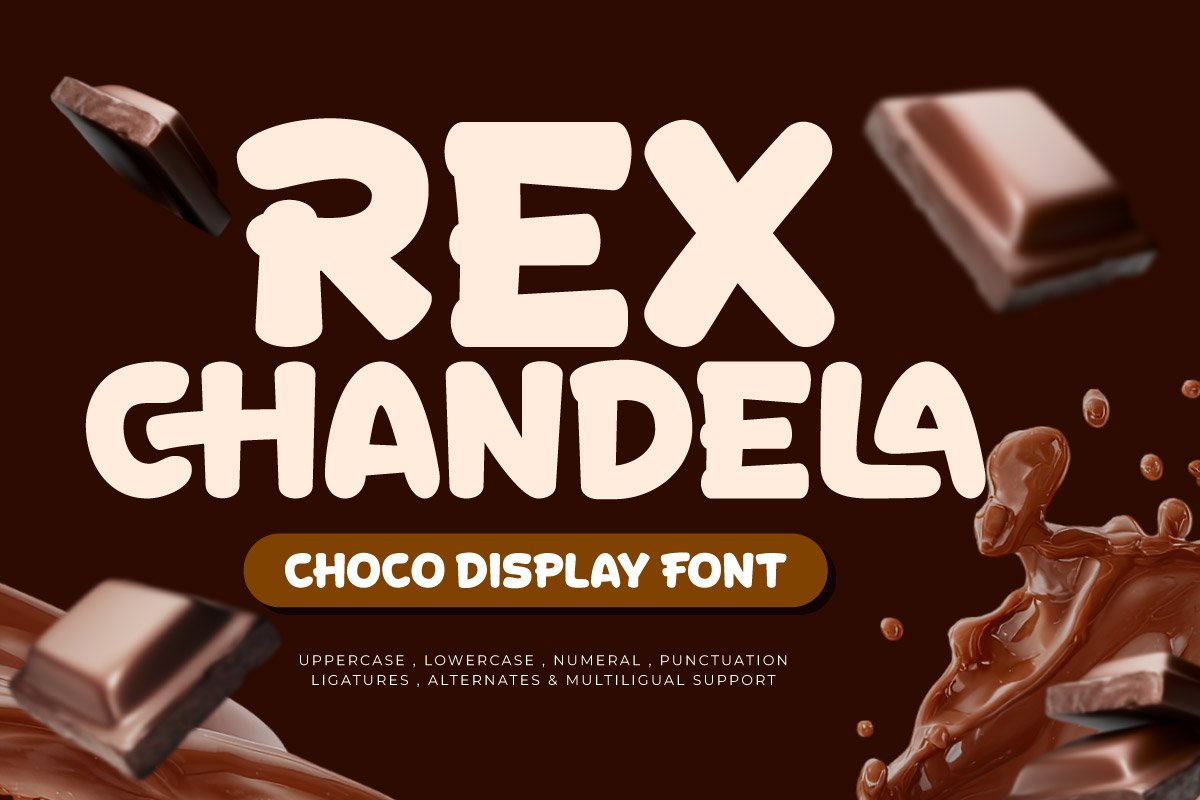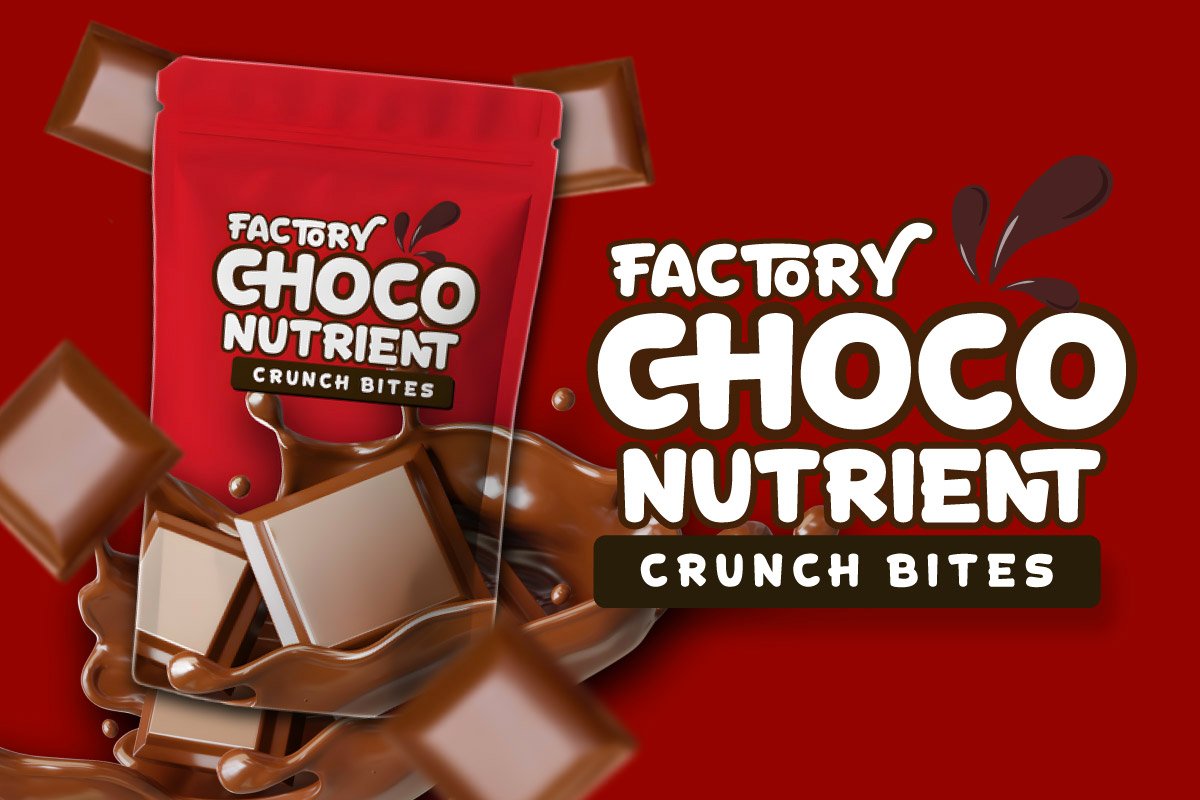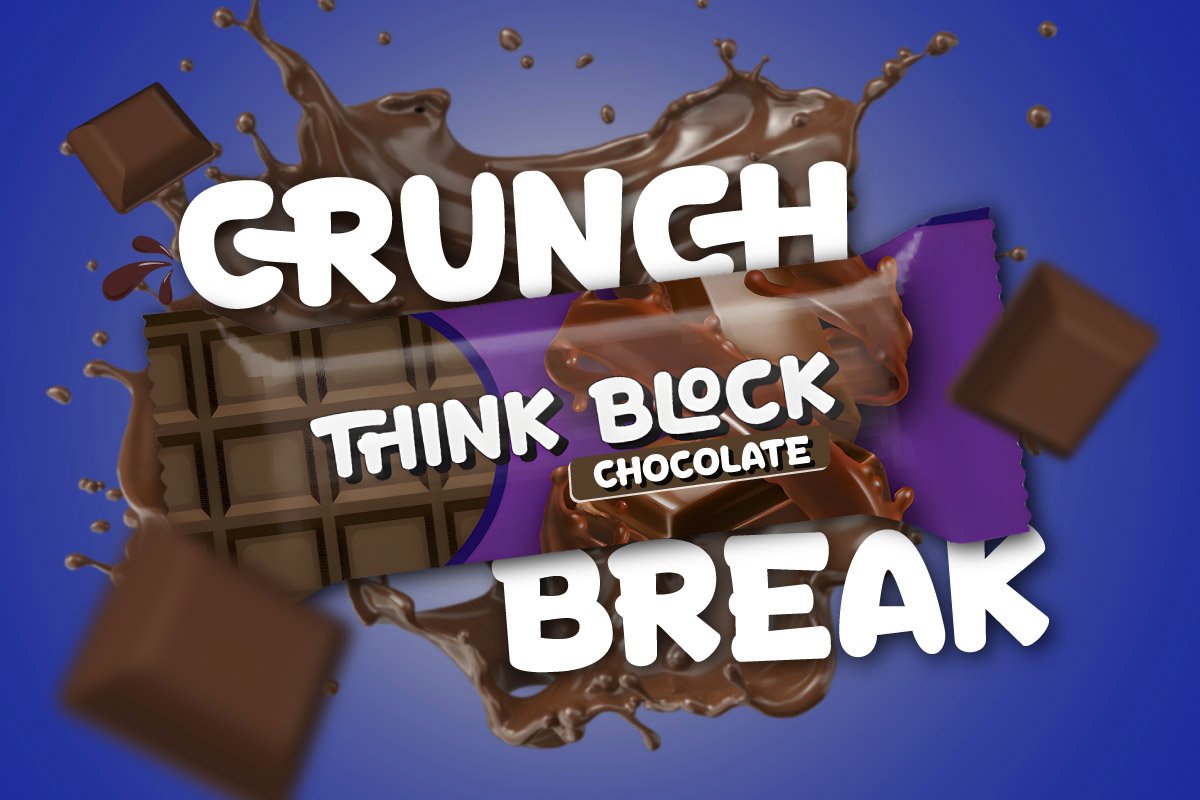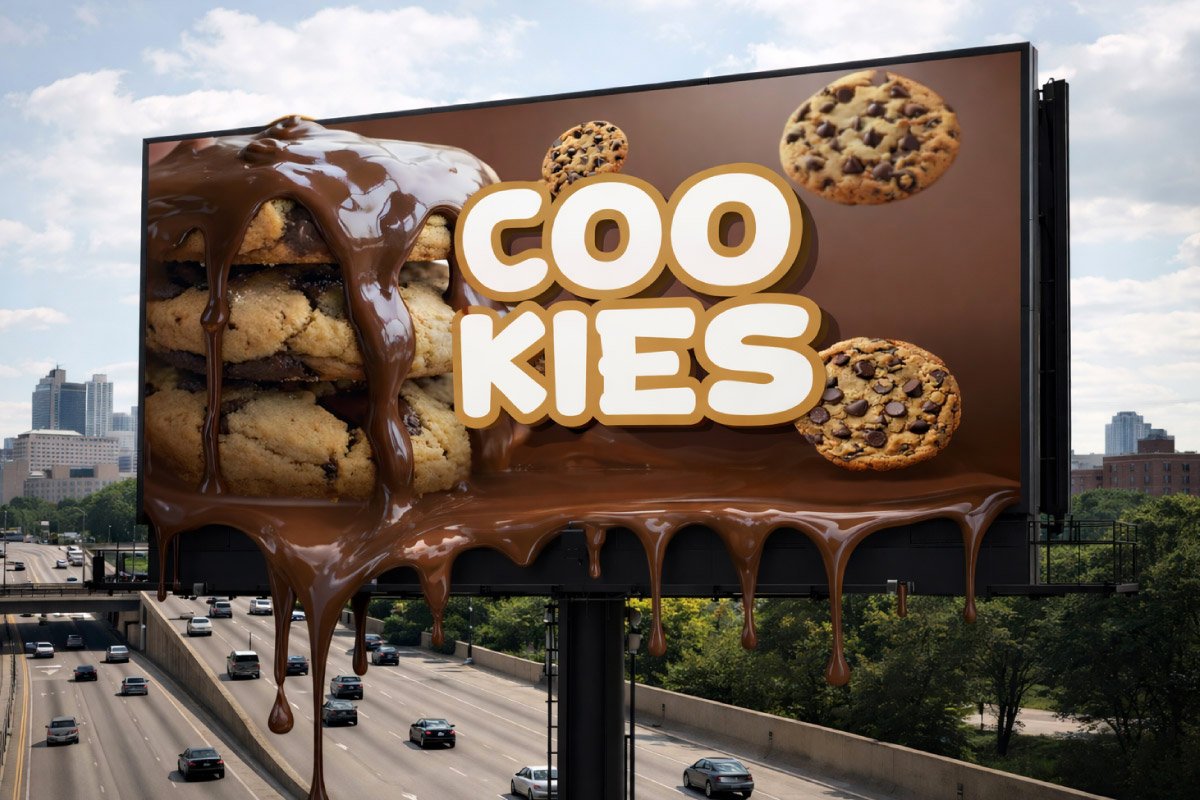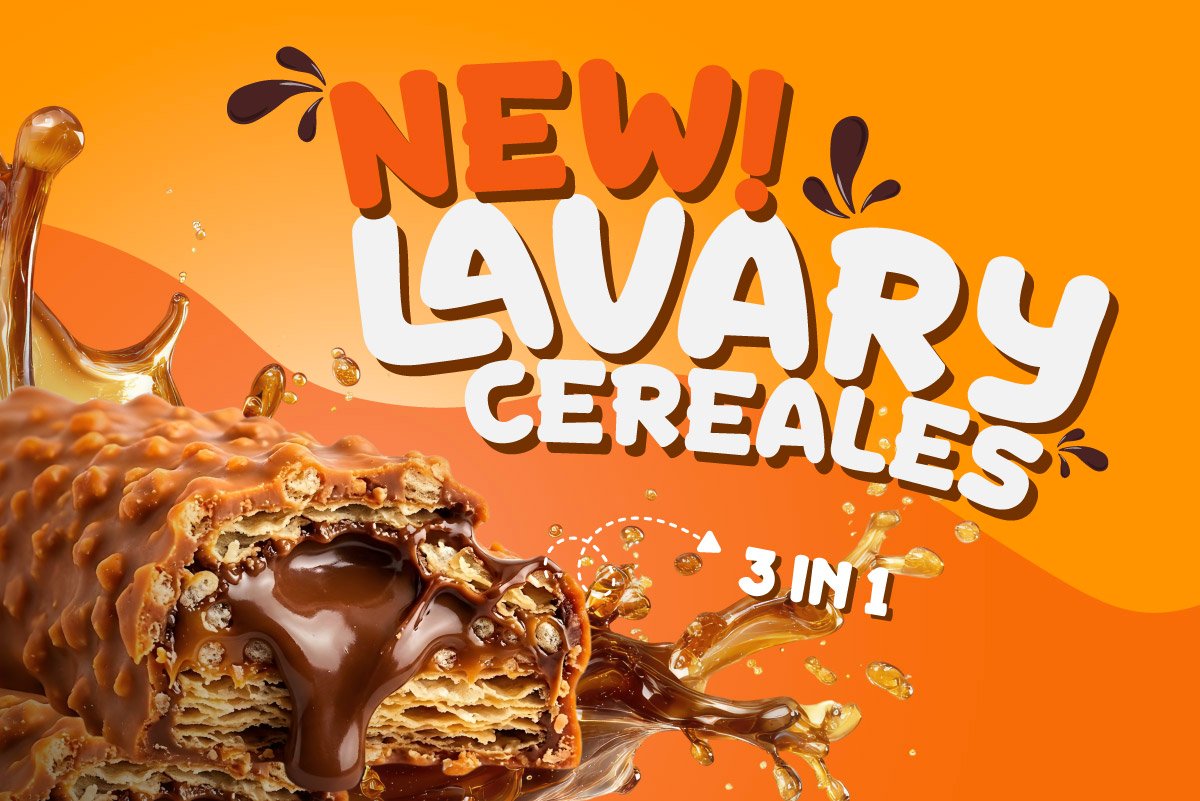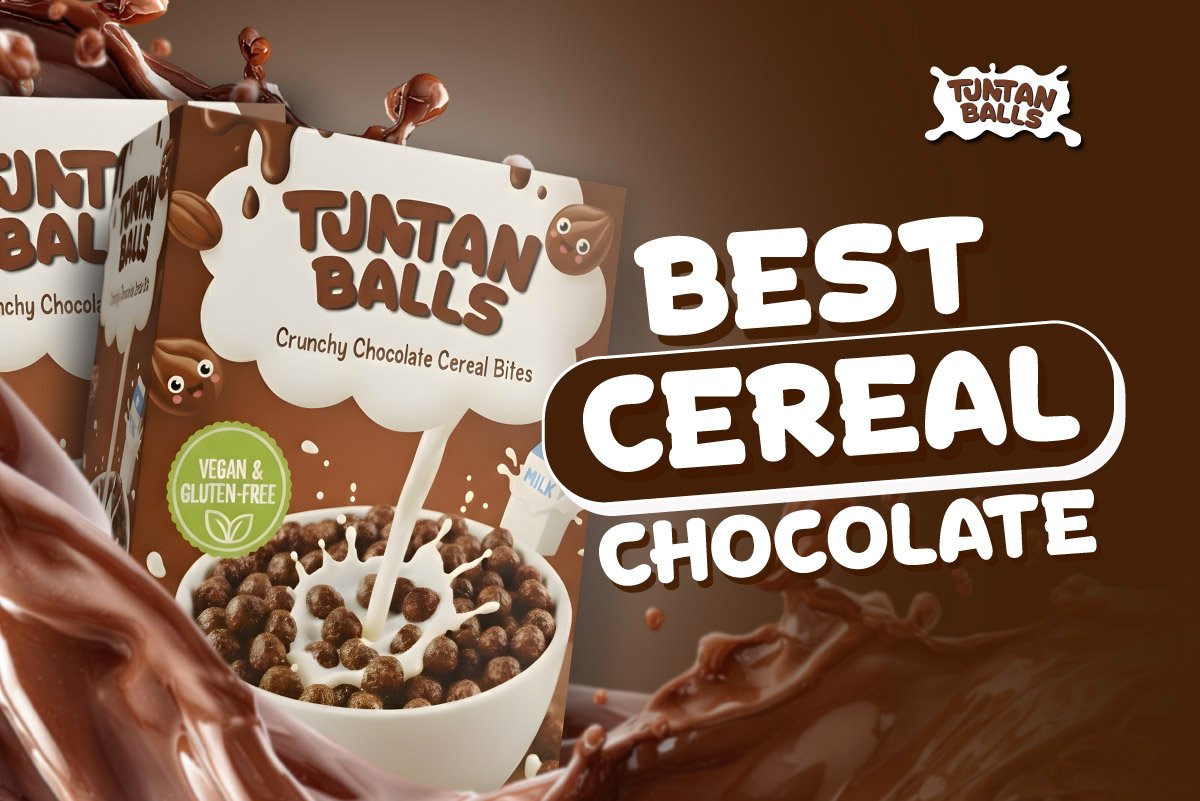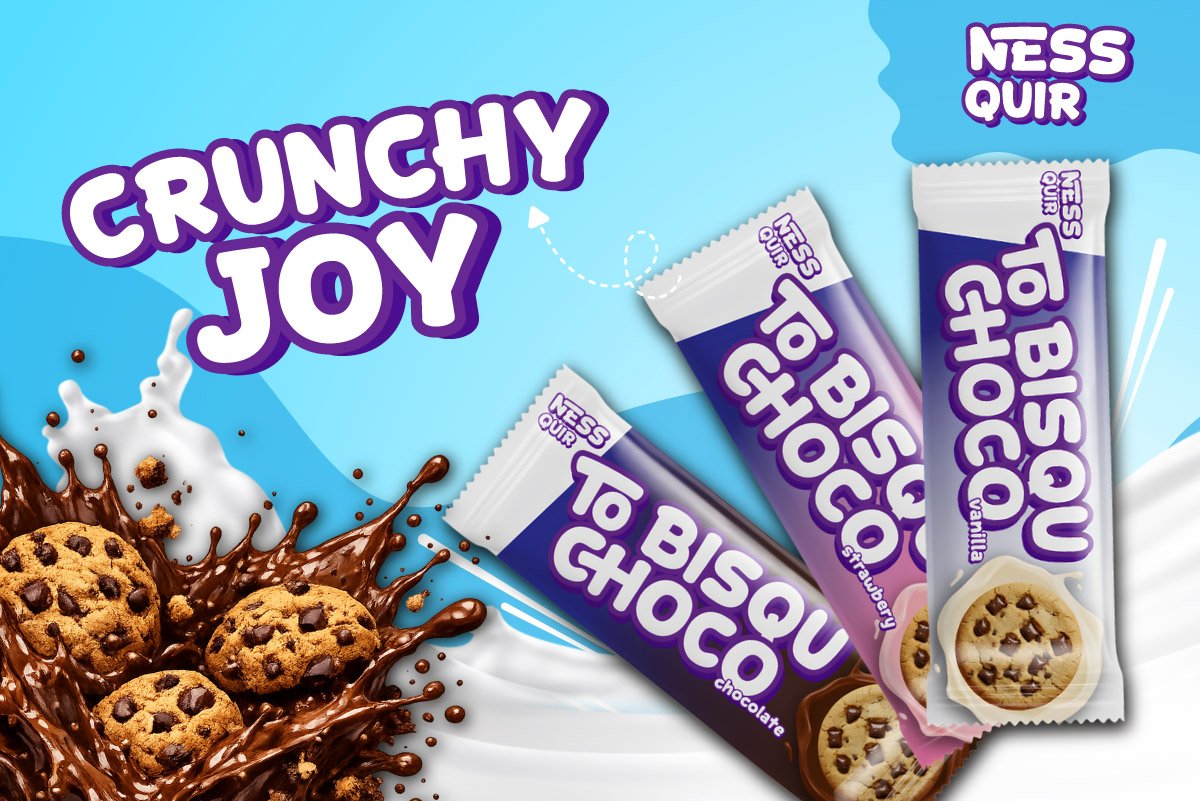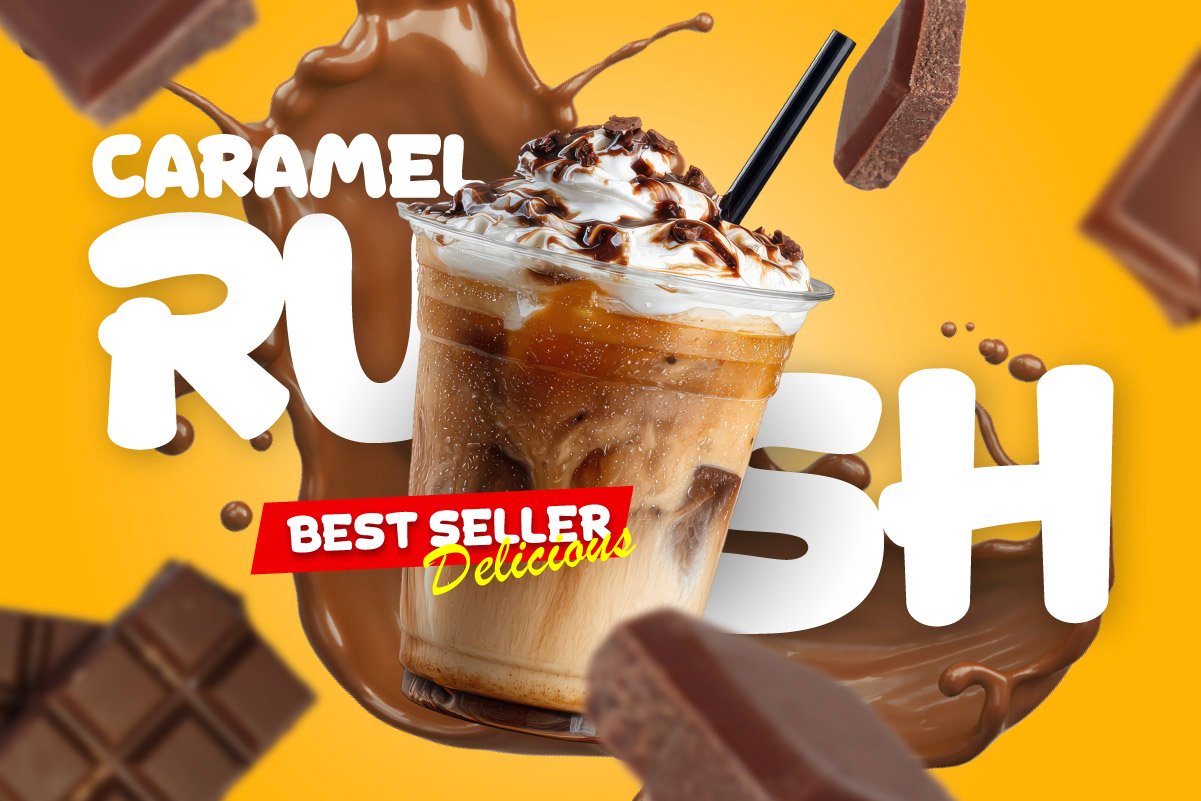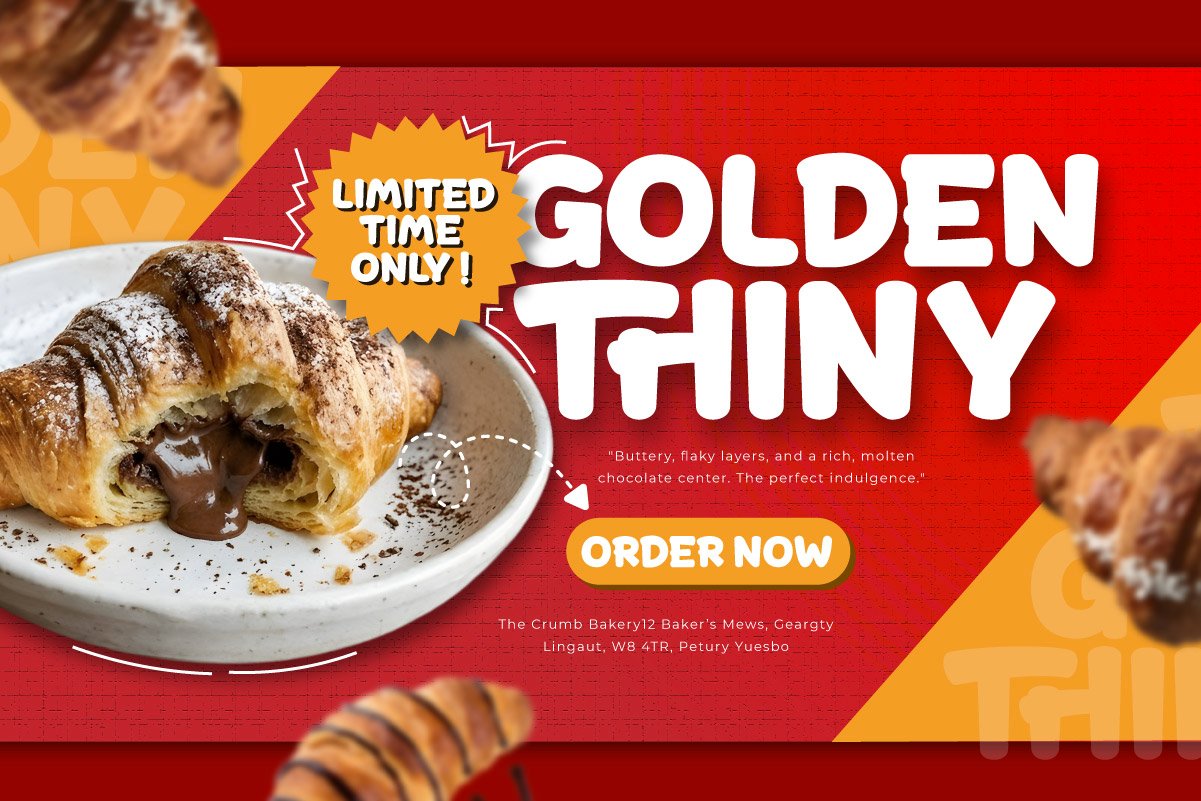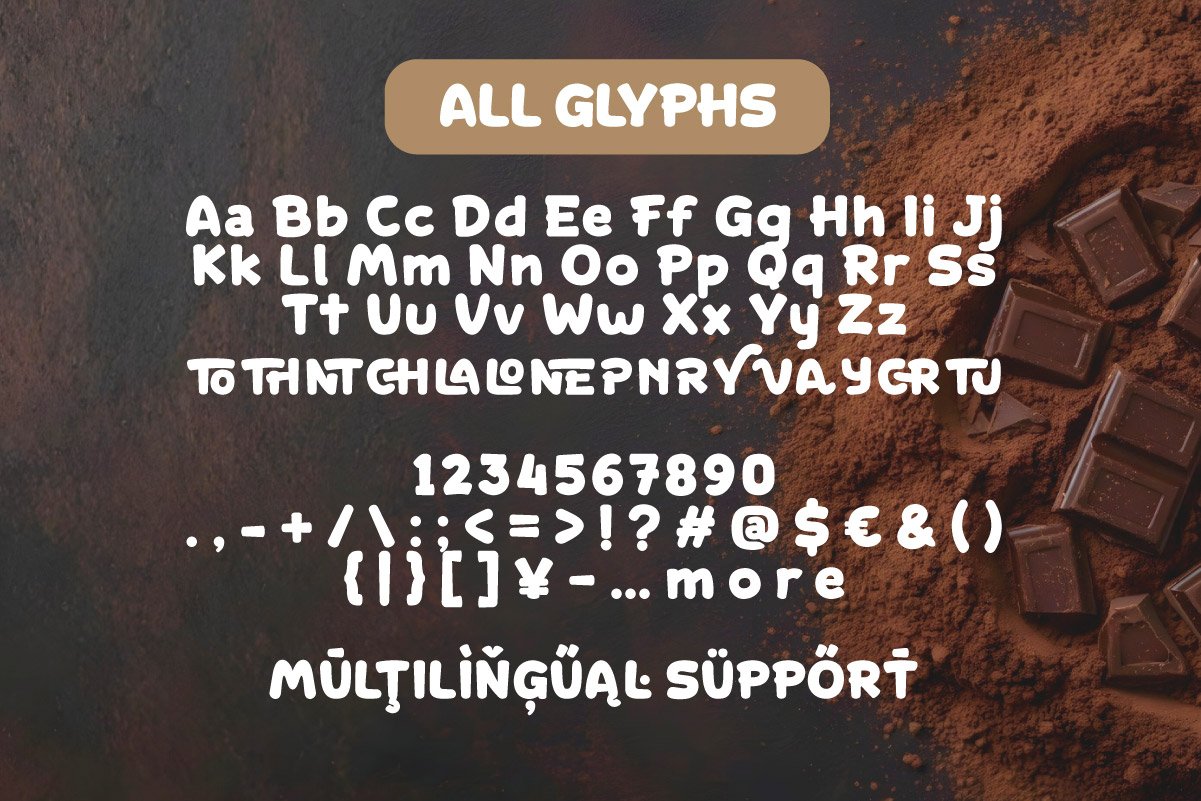
Rex Chandela – Choco Display Font
Rex Chandela is a Choco Display Font typeface designed to strengthen visual identities within the F&B (Food & Beverage) industry. Featuring bold and rounded letterforms, this font delivers a functional impression for branding needs in the Snack & Confectionery sector. Its soft characteristics provide a friendly and modern vibe to any sweet treat product packaging.
The font design prioritizes high readability with solid letter proportions, making it an ideal asset for Chocolate Bar packaging designs and other product labels. Its shapes, which resemble the texture of sweet treats, are highly relevant for casual yet visually professional Daily Break-time Snack themes. The structure of each character helps create a clear information hierarchy in dense design layouts.
As a culinary typography solution, Rex Chandela is highly effective for bakery logos, promotional posters, and social media content. Its ability to capture audience attention makes it the right choice for designers seeking a consistent Appetizing Font aesthetic. This font is ready to enhance product appeal in the market through a characterful and memorable visual presentation for consumers.
Multilingual Support, including 85 languages: